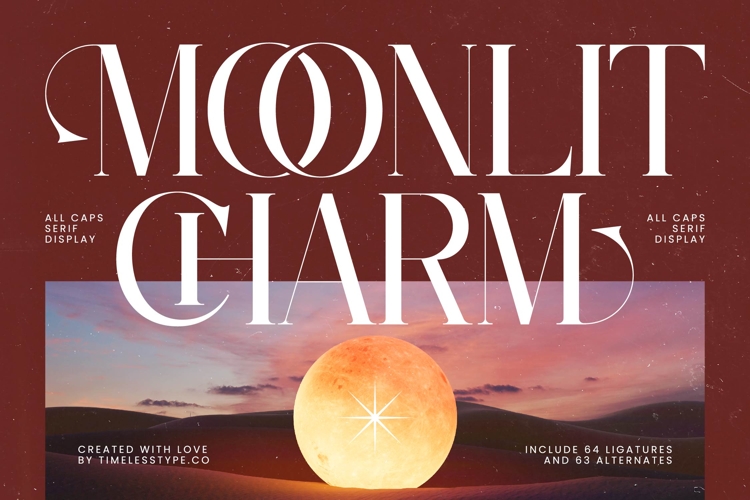
Moonlit Charm - All Caps Serif Display
Moonlit Charm is an all caps serif display font that combines elegance, mystique, and modern refinement. Its tall proportions, fine lines, and delicate serifs create a graceful balance between strength and sophistication, making it ideal for projects that want to radiate both authority and charm. With 64 ligatures and 63 alternates, Moonlit Charm gives designers endless possibilities to craft unique and expressive typography that feels luxurious and timeless.
This font is designed to shine in headline typography, where its elongated forms and dramatic contrasts command attention across posters, banners, and editorial layouts. In branding and logo design, Moonlit Charm conveys exclusivity and finesse, making it a perfect choice for luxury products, fashion houses, jewelry brands, and boutique businesses looking to project a prestigious identity. Its refined structure also makes it excellent for packaging design, particularly for cosmetics, perfumes, and gourmet goods where typography must express elegance and premium quality.
Moonlit Charm thrives in advertising campaigns, event promotions, and wedding invitations, where its alternates and ligatures add artistry and individuality. For social media content and digital platforms, the font ensures clarity while infusing a high-fashion editorial touch, helping brands stand out with sophistication.
Its versatility extends to book covers, certificates, lifestyle branding, and cultural projects, where grandeur and refinement are essential. With multilingual support, Moonlit Charm is equally powerful in global applications, making it a practical and artistic tool for international design.
Ultimately, Moonlit Charm is more than a font—it is a visual signature of elegance and timeless beauty. Whether used in editorials, branding, packaging, or event design, it guarantees an unforgettable, stylish, and luxurious typographic experience.